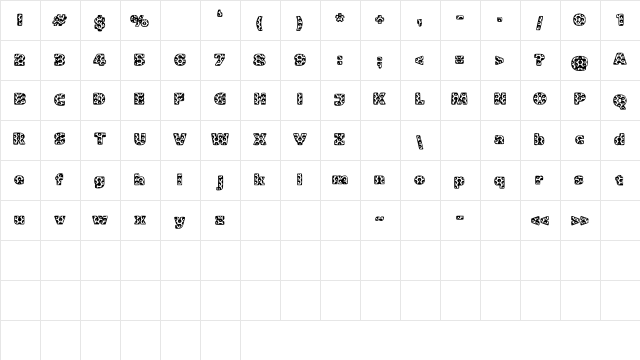
Metalic Medium
Design Context for Metalic Typeface
Metalic is a composed and adaptable typeface that performs quietly and consistently across a wide range of design contexts.